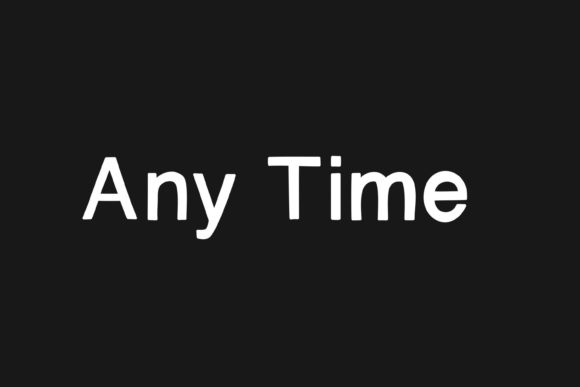
Introducing Any Time Font: The Ultimate Sans Serif for Designers and Crafters
Are you tired of using fonts that are too ornate or distracting? Look no further than Any Time Font, a clean and simple lettered sans serif font that’s perfect for any design project. With its adaptability and versatility, Any Time Font is an essential asset to add to your font library.
The Characteristics of Any Time Font
Any Time Font is a sans serif font, which means it doesn’t have the small lines or flourishes that are commonly found at the ends of letters in serif fonts. This makes it a great choice for designs where you want the text to be clear and easy to read, without any distractions. The font is also lettered, which gives it a more personal and human touch.
One of the standout features of Any Time Font is its simplicity. The letters are clean and uncomplicated, making it easy to read and understand. This simplicity also makes it highly adaptable, as it can be used in a wide range of contexts and designs.
The Benefits of Using Any Time Font
So why should you choose Any Time Font for your design projects? Here are just a few benefits of using this versatile font:
- Versatility: Any Time Font can be used in a wide range of designs, from modern and minimalist to playful and creative. Its simplicity makes it easy to pair with other fonts and design elements.
- Readability: The clean and simple design of Any Time Font makes it easy to read, even at small sizes. This makes it perfect for body text, as well as for headings and titles.
- Adaptability: Any Time Font can be used in any context, from digital designs like websites and social media graphics to print designs like brochures and posters.
How to Use Any Time Font in Your Designs
Any Time Font is a highly versatile font that can be used in a wide range of designs. Here are a few ideas to get you started:
- Pair it with other fonts: Any Time Font pairs well with a wide range of other fonts, from bold and playful to elegant and sophisticated. Try pairing it with a serif font for a classic look, or with a script font for a more creative vibe.
- Use it for body text: Any Time Font is easy to read, making it perfect for body text. Use it for paragraphs, articles, and other blocks of text.
- Use it for headings and titles: Any Time Font is also great for headings and titles. Its simplicity makes it easy to read, even at large sizes.
Who is Any Time Font for?
Any Time Font is perfect for designers and crafters who want a clean and simple font that can be used in a wide range of designs. This includes:
- Graphic designers: Any Time Font is a great addition to any graphic designer’s font library. Its versatility makes it perfect for a wide range of design projects.
- Crafters: If you’re a crafter who loves to make things like cards, scrapbook pages, and other paper crafts, Any Time Font is a great choice. Its simplicity makes it easy to read and understand.
- Digital designers: Any Time Font is also perfect for digital designers who want a font that can be used in a wide range of digital designs, from websites and social media graphics to email newsletters and more.
In conclusion, Any Time Font is a clean and simple lettered sans serif font that’s perfect for any design project. Its versatility, readability, and adaptability make it an essential asset to add to your font library. Whether you’re a graphic designer, crafter, or digital designer, Any Time Font is a great choice for any design project.
So why not give Any Time Font a try? With its simplicity and versatility, it’s sure to become a go-to font in your design arsenal.